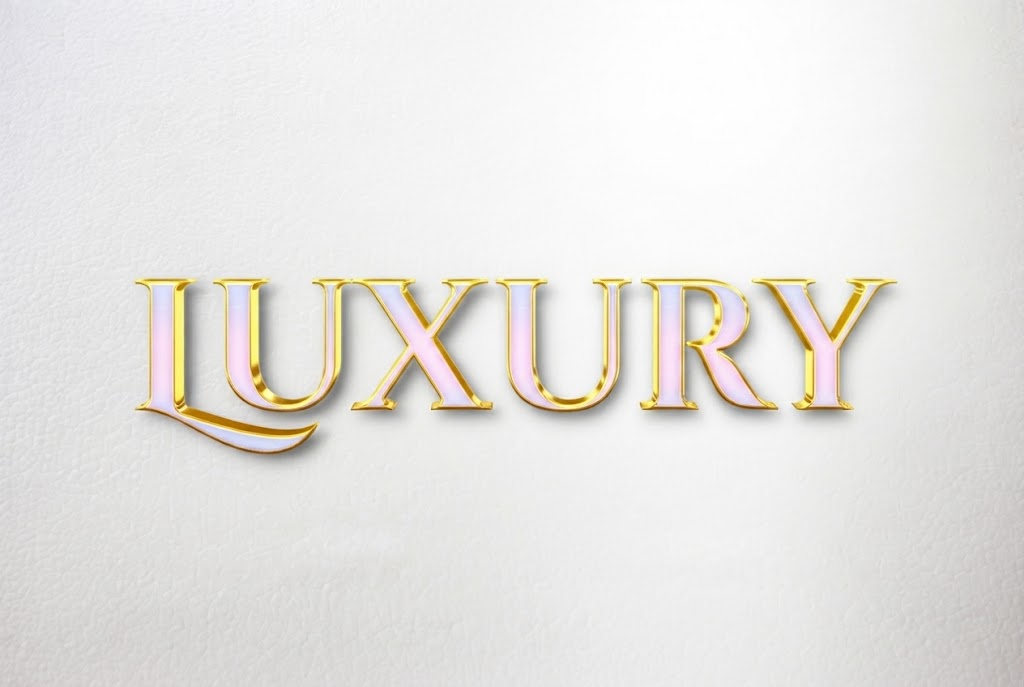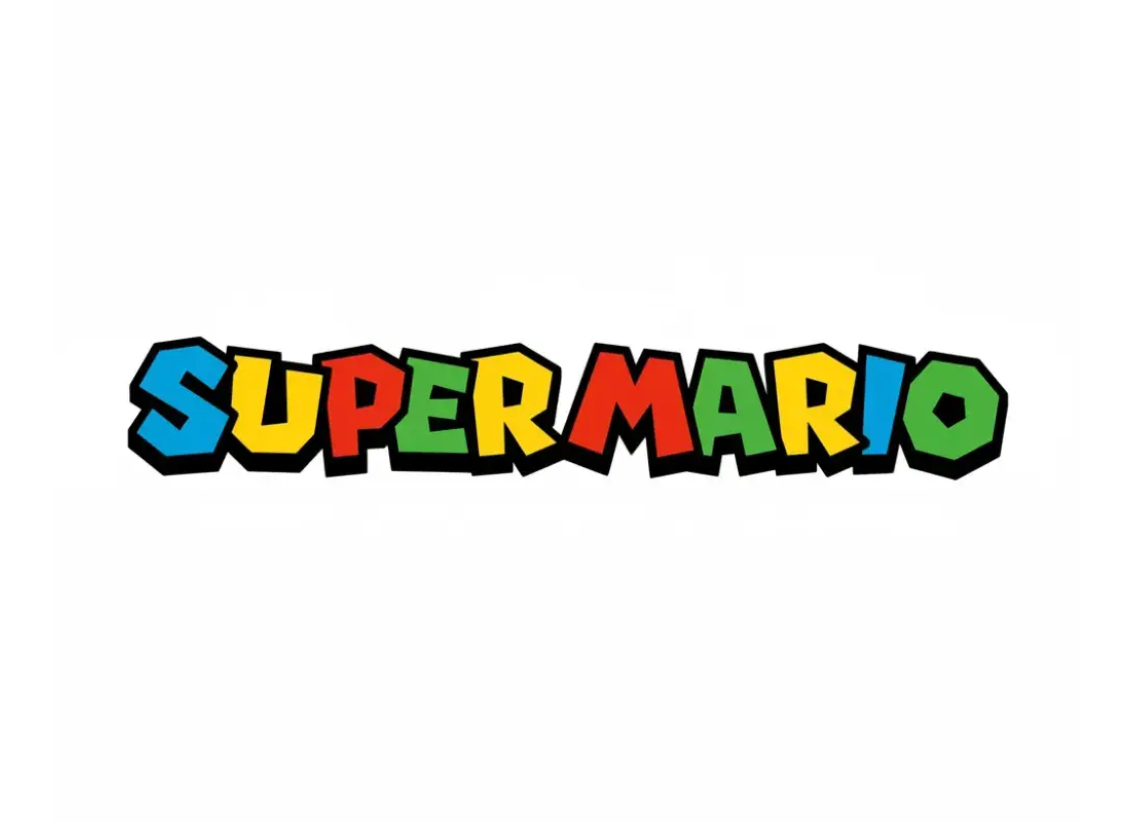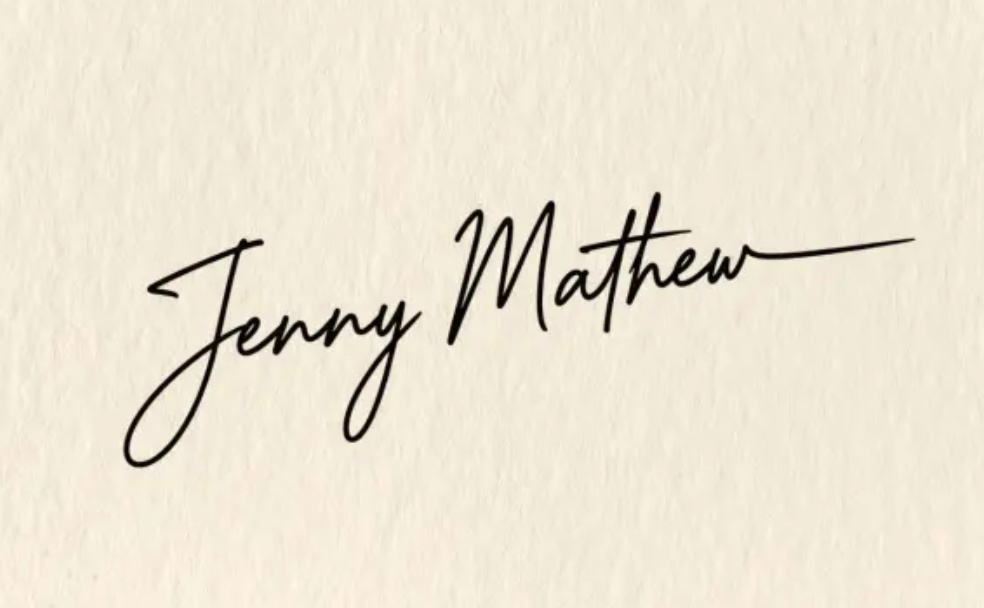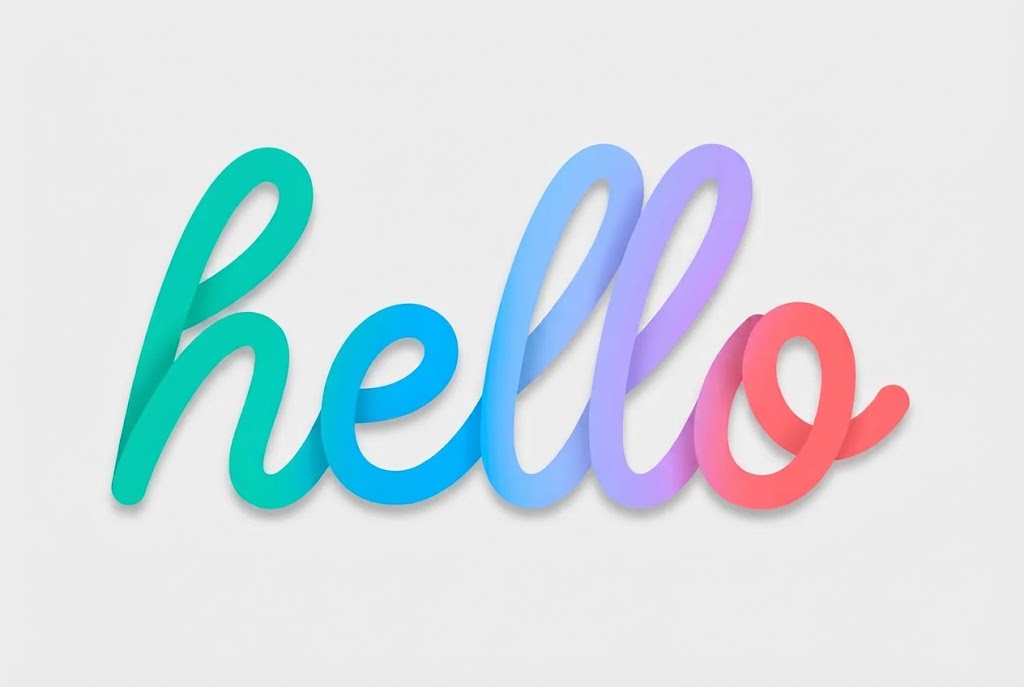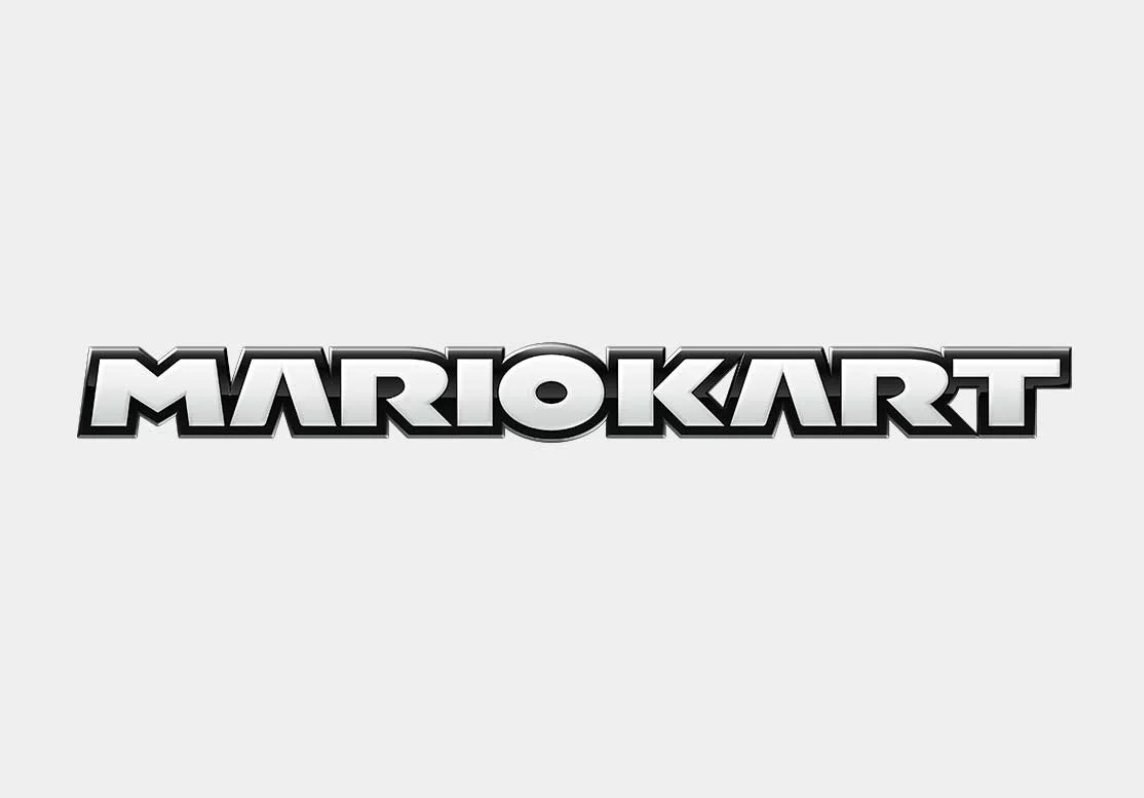
Introducing Our New AI Text Effect Font Generator
Turn any word or phrase into polished display lettering with LogoAI's new AI text effect font generator, featuring Fancy, Super Mario, Signature, 3D, and more creative styles.
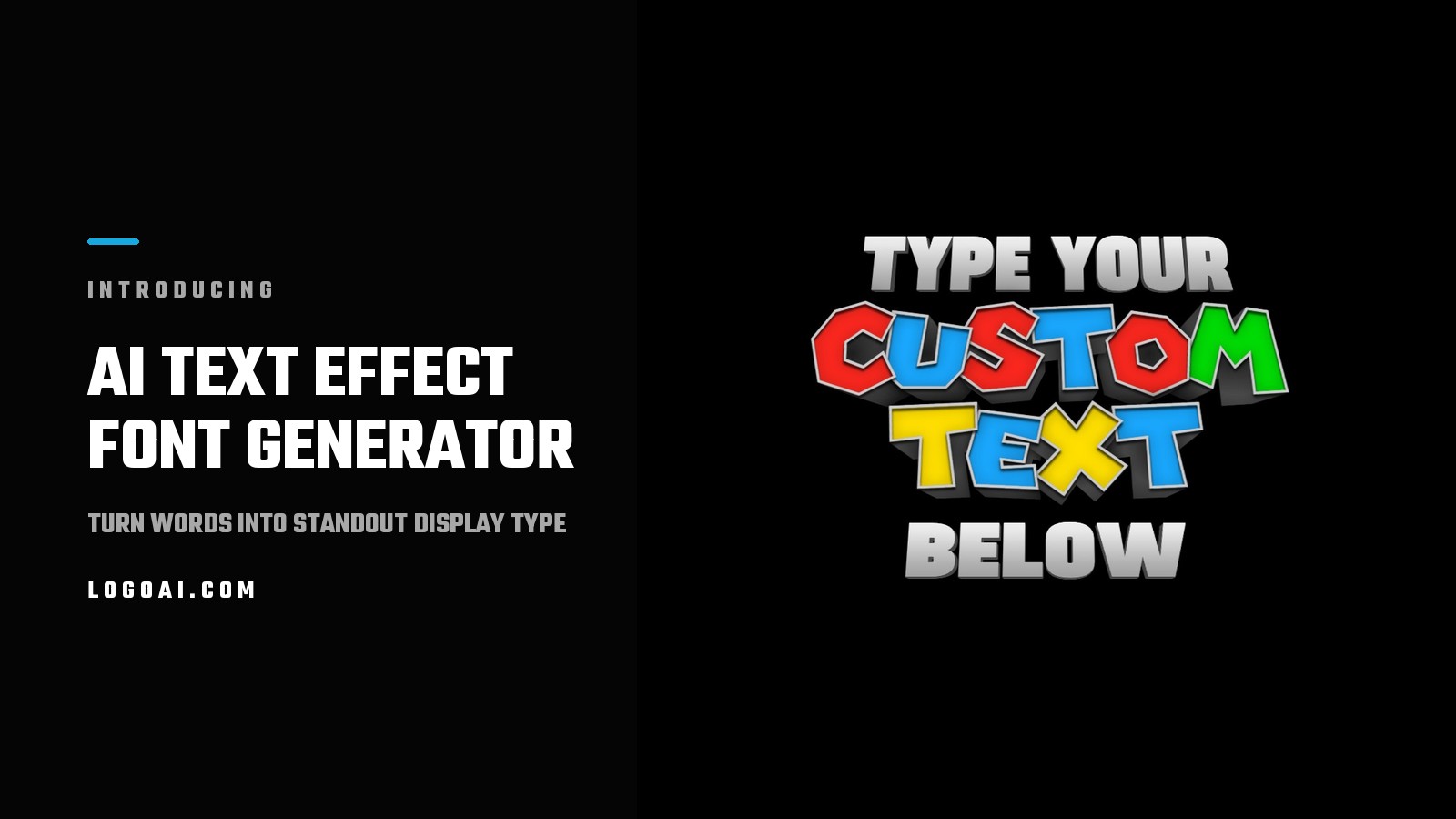
Typography can say much more than the words it spells. The right lettering can make a launch feel cinematic, a channel feel playful, a signature feel personal, or a campaign feel instantly recognizable. But building polished text effects from scratch usually means finding the right font, creating outlines and shadows, adding textures, and tuning every layer by hand.
Today, we are introducing a faster way to get there: the new AI Text Effect Font Generator. Choose a style you like, enter your own text, and generate custom display lettering in seconds. No complicated layer stack and no typography expertise required.
The new experience brings our growing collection of text styles into one visual gallery. You can browse by category, open any example, replace the sample wording with your own, and create a fresh result inspired by that visual direction.
What Is an AI Text Effect Font Generator?
An AI text effect font generator transforms ordinary words into stylized lettering. Instead of only changing the typeface, it can interpret the complete visual treatment: dimensional depth, material, color, lighting, outline, texture, composition, and mood.
That distinction matters. A font is the underlying letter design. A text effect is the finished visual treatment applied to those letters. LogoAI combines both ideas into a simple workflow, making it easy to create title art, promotional graphics, social posts, thumbnails, brand concepts, event graphics, and decorative wordmarks.
How It Works
Getting started takes three steps:
- Choose an example. Browse the full text effect gallery or open a category that matches your project.
- Enter your text. Replace the sample lettering with a name, headline, phrase, or short message.
- Generate your design. AI recreates the visual direction around your wording and produces a new image you can use in your creative work.
The examples are not rigid templates. They act as visual references, giving the generator a clear direction while leaving room for a result shaped around your text.
Explore the New Fancy Text Effects
The new Fancy text generator brings together 25 expressive styles selected from across the gallery. You will find ornate display lettering, glossy script, pearl and gold finishes, dimensional bubble type, floral details, rose-gold treatments, and other decorative looks.
Fancy works especially well when plain text feels too restrained. Try it for beauty and fashion promotions, invitations, boutique packaging, creator graphics, event titles, or premium product concepts.
A useful prompt-writing principle is to keep the wording short. Decorative lettering has more room to show its character when the phrase is concise. A brand name, product collection, campaign title, or two-to-four-word headline is often a strong starting point.
Create Playful Super Mario–Inspired Lettering
For bold, colorful title art, explore the new Super Mario text generator. This category includes eight styles from our original dedicated generator, now available inside the unified text effect experience.
The collection ranges from classic multicolor lettering to glossy 3D, retro pixel, racing, party, badge, and outlined variations. These styles are ideal for gaming graphics, birthday invitations, playful thumbnails, kids' events, fan-inspired artwork, and high-energy social posts.
Because these treatments use strong colors and recognizable shapes, they perform best with short titles. Try a first name, team name, party theme, or gaming handle rather than a full sentence.
Turn a Name Into Signature-Style Art
The new Signature text generator collects elegant signature references in one place. Choose from flowing script, casual underline, ornate calligraphy, bold brush lettering, and additional handwritten treatments already available in the gallery.
Signature effects are useful beyond digital signatures. They can add a personal finish to a photography watermark, creator identity, beauty brand, fashion label, portfolio, email graphic, or personal logo concept. Enter a full name for a natural signature composition, or use a short brand name for a more compact wordmark.
If you want to explore a broader range of hand-drawn styles, the Handwriting text generator includes casual marker, chalk, brush, and scripted directions.
Add Depth With 3D and Metal Effects
Dimensional typography remains one of the fastest ways to make a headline feel substantial. The 3D text generator includes glossy, inflated, beveled, clay-like, and other depth-driven styles that can help titles stand out from a flat background.
For something harder and more dramatic, the Metal text generator explores chrome, gold, racing, and industrial finishes. These styles are a natural fit for gaming, automotive, sports, music, technology, and entertainment graphics.
Start with the full AI Text Effect Font Generator, or jump directly into Fancy, Super Mario, or Signature to create your first design.